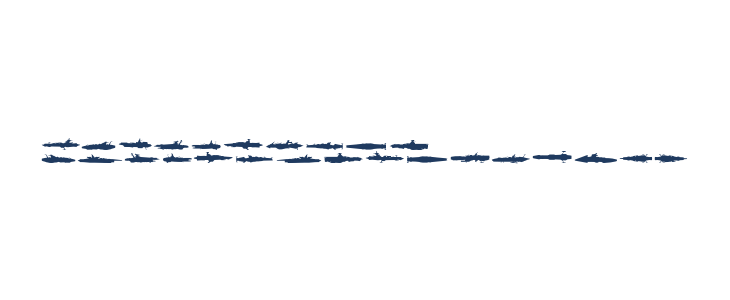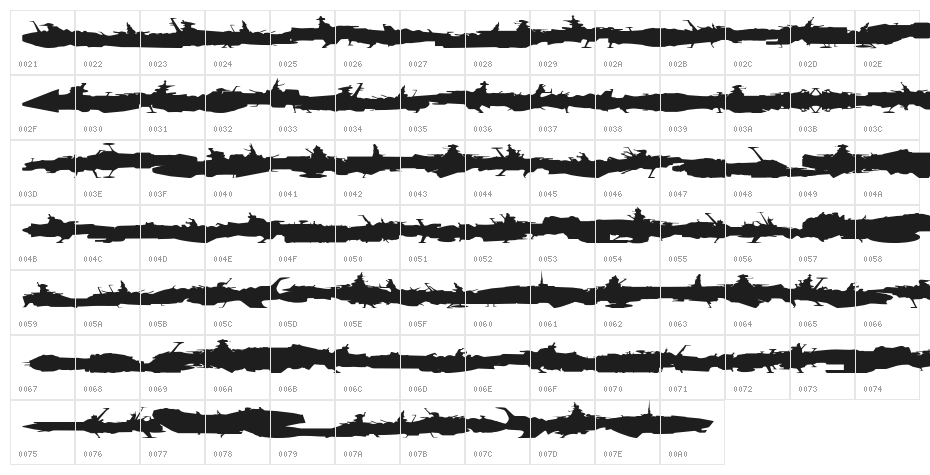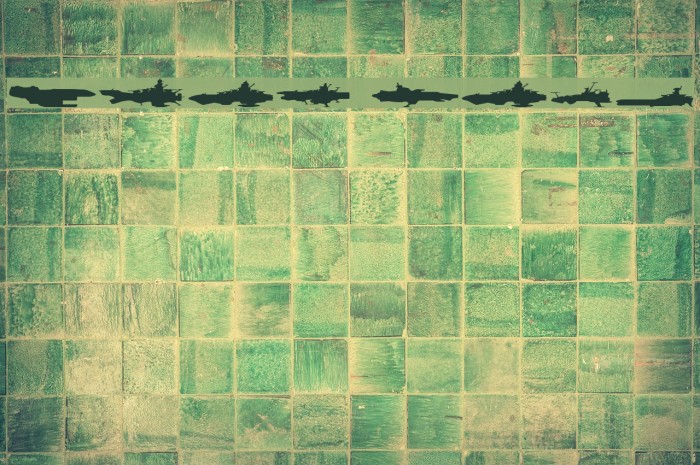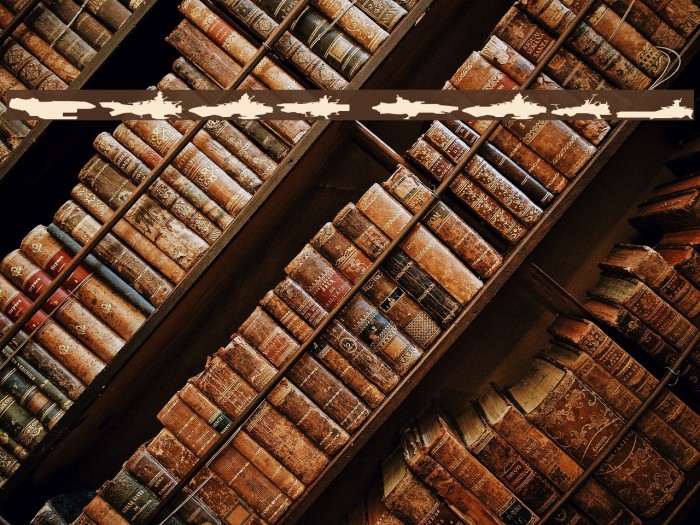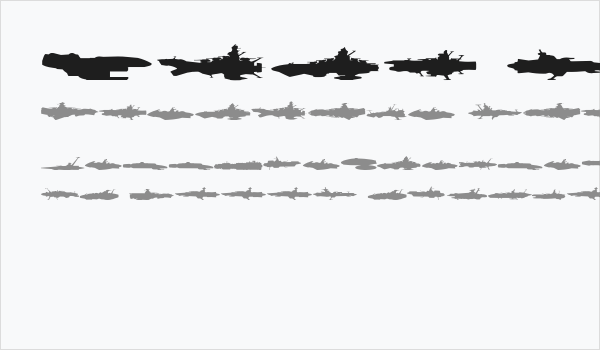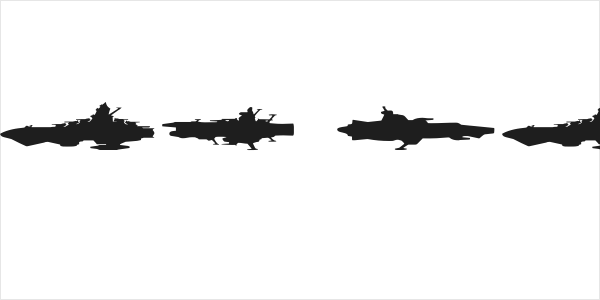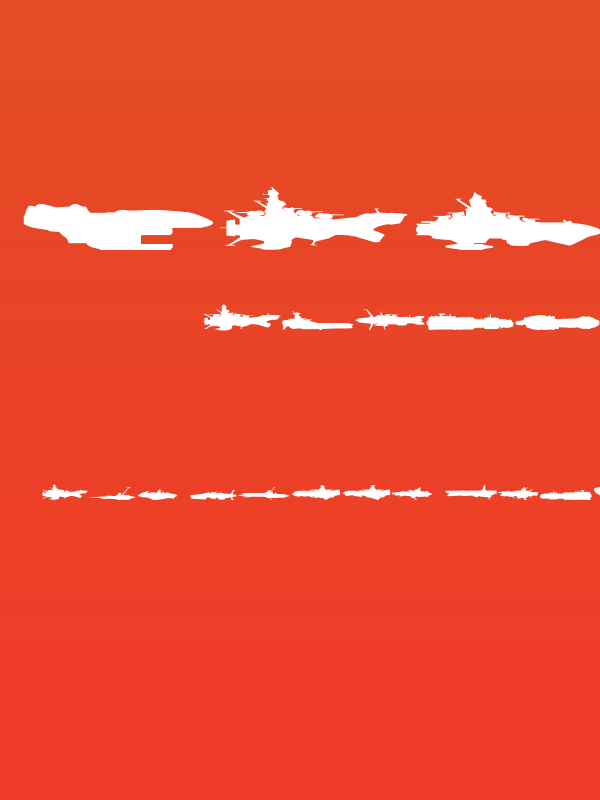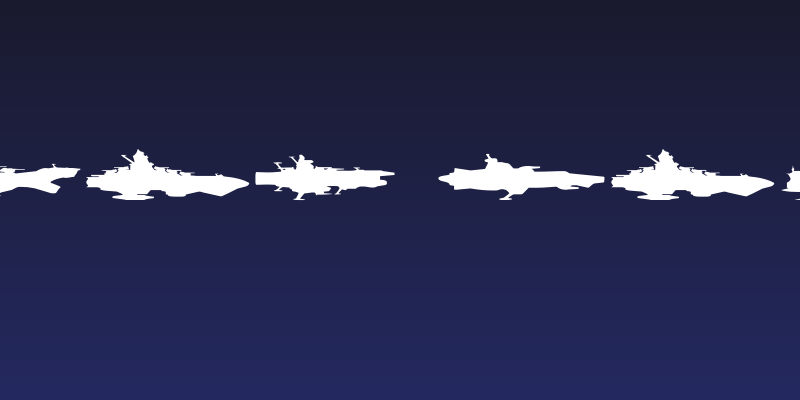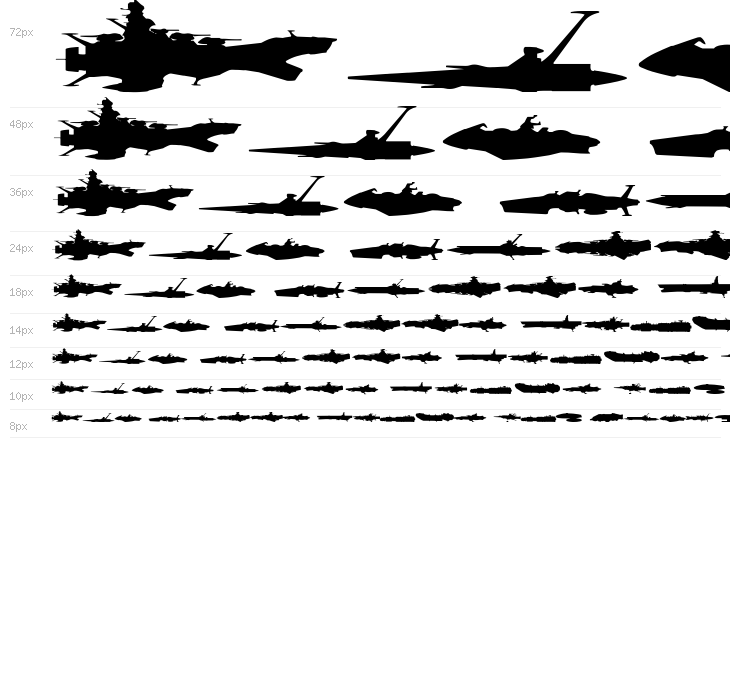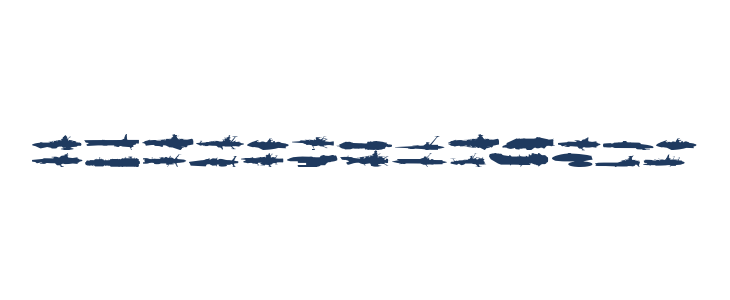
Star Navy Font
Star Navy Description
This font features a unique and creative design where each character is represented by a silhouette of a spaceship. The intricate details of each ship give the font a futuristic and sci-fi aesthetic. The characters are distinct yet maintain a cohesive style, making it suitable for themed projects. The font's design is highly decorative, focusing on visual impact rather than readability. Each letter and number is crafted to resemble a different type of spacecraft, adding a playful and imaginative element to the text.
Overall StyleFuturistic, Sci-Fi, Decorative
Use CaseHeadlines, Logos, Themed Designs
Proposed ProjectsIdeal for sci-fi themed posters, video game graphics, movie titles, and any creative project requiring a futuristic touch.